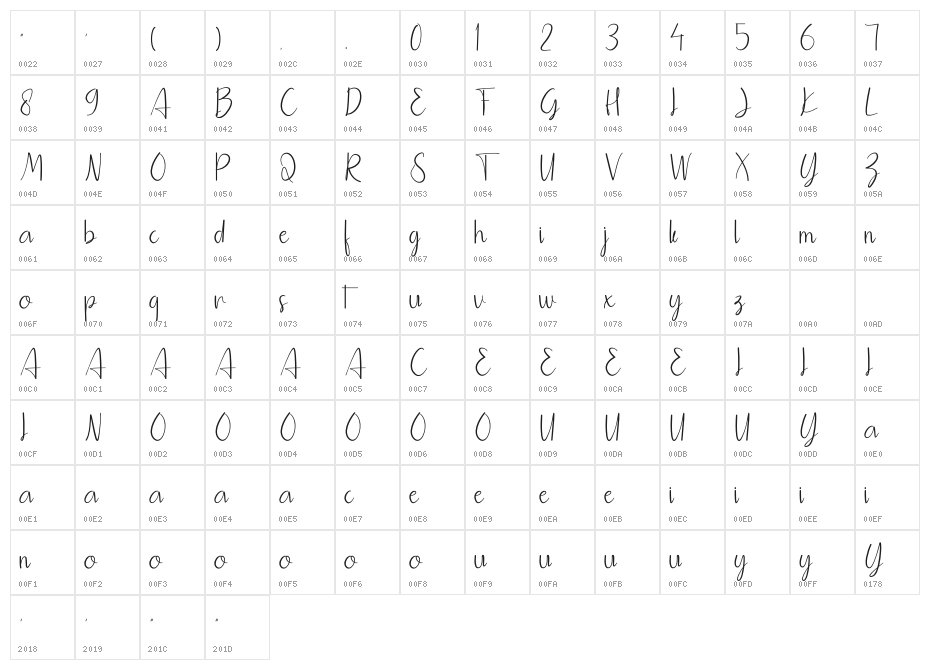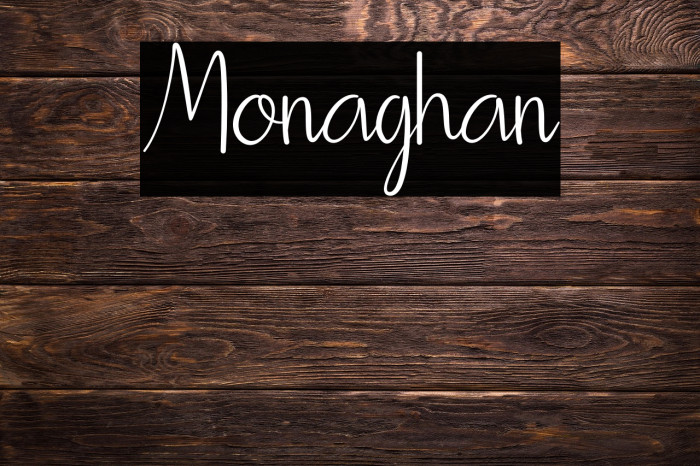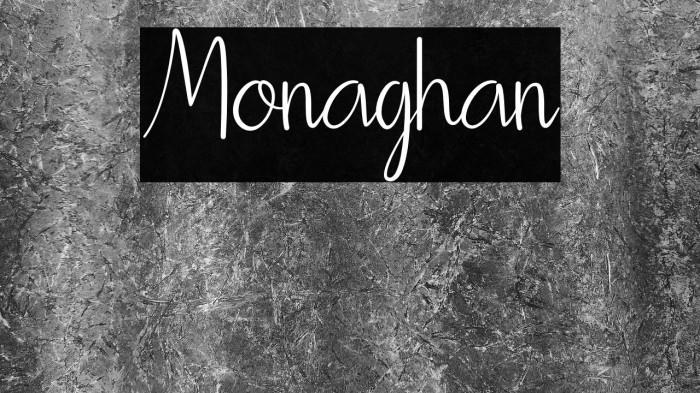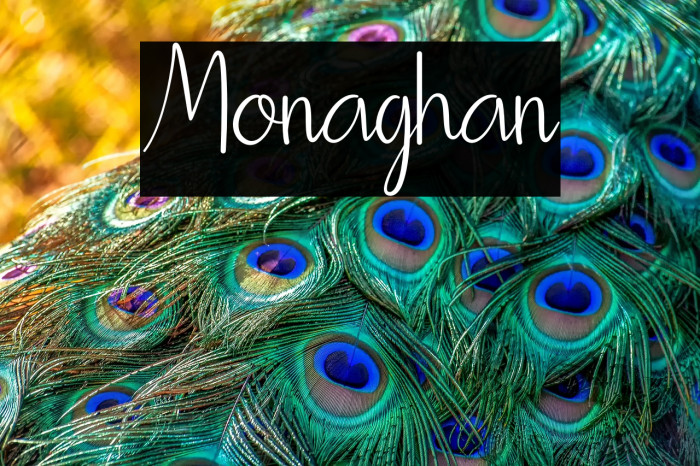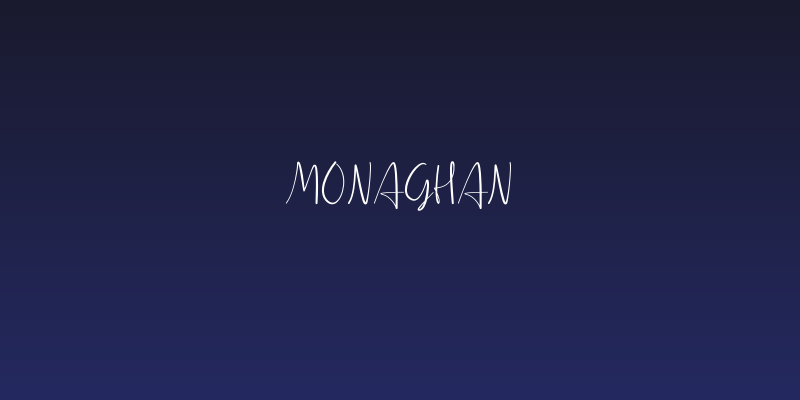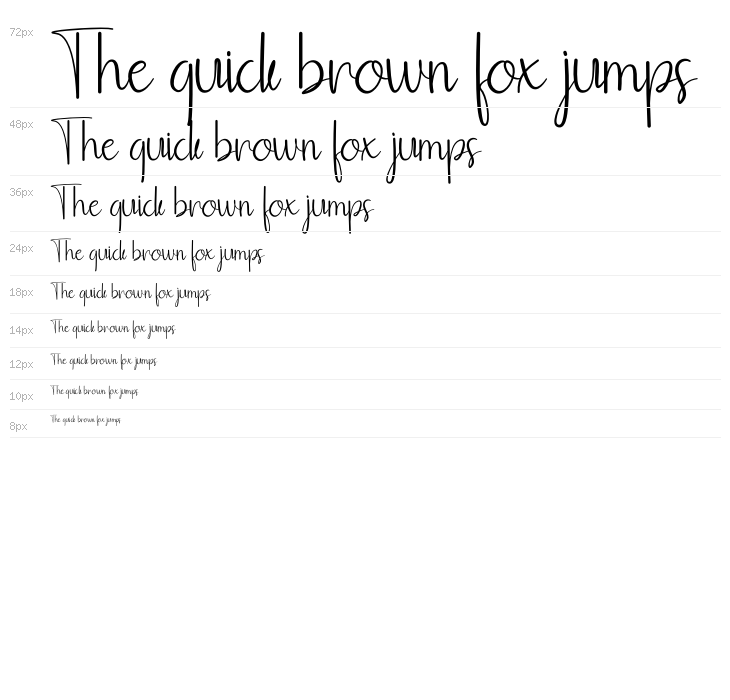
Monaghan Font
Monaghan Description
This font features a playful and whimsical handwritten style, characterized by its flowing, cursive-like strokes. The letters have a tall and narrow appearance, with varying stroke thickness that adds a dynamic and lively feel. The uppercase letters are distinct with unique curves and loops, while the lowercase letters maintain a consistent, fluid motion. The numerals are similarly styled, offering a cohesive look across all characters. This font's informal and friendly nature makes it suitable for creative and casual applications.
| Proposed Projects | Ideal for greeting cards, invitations, personal branding, and creative projects that require a friendly and informal touch. |